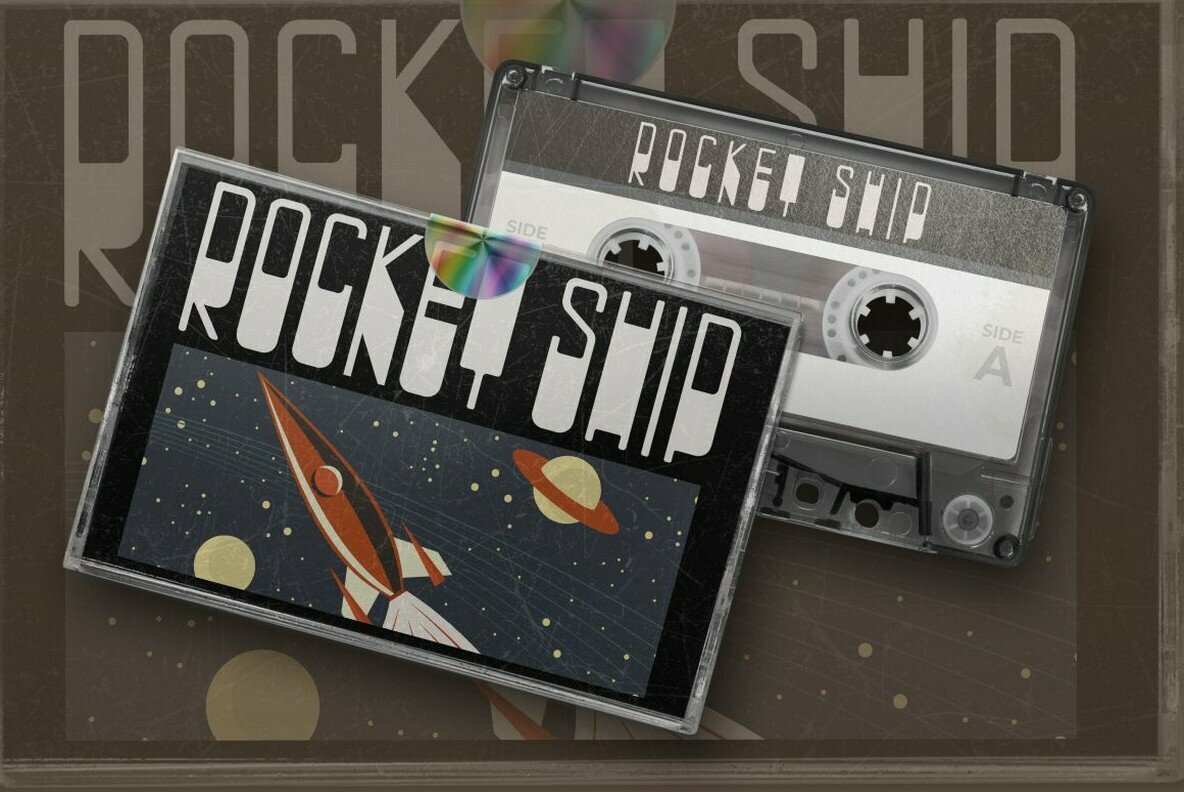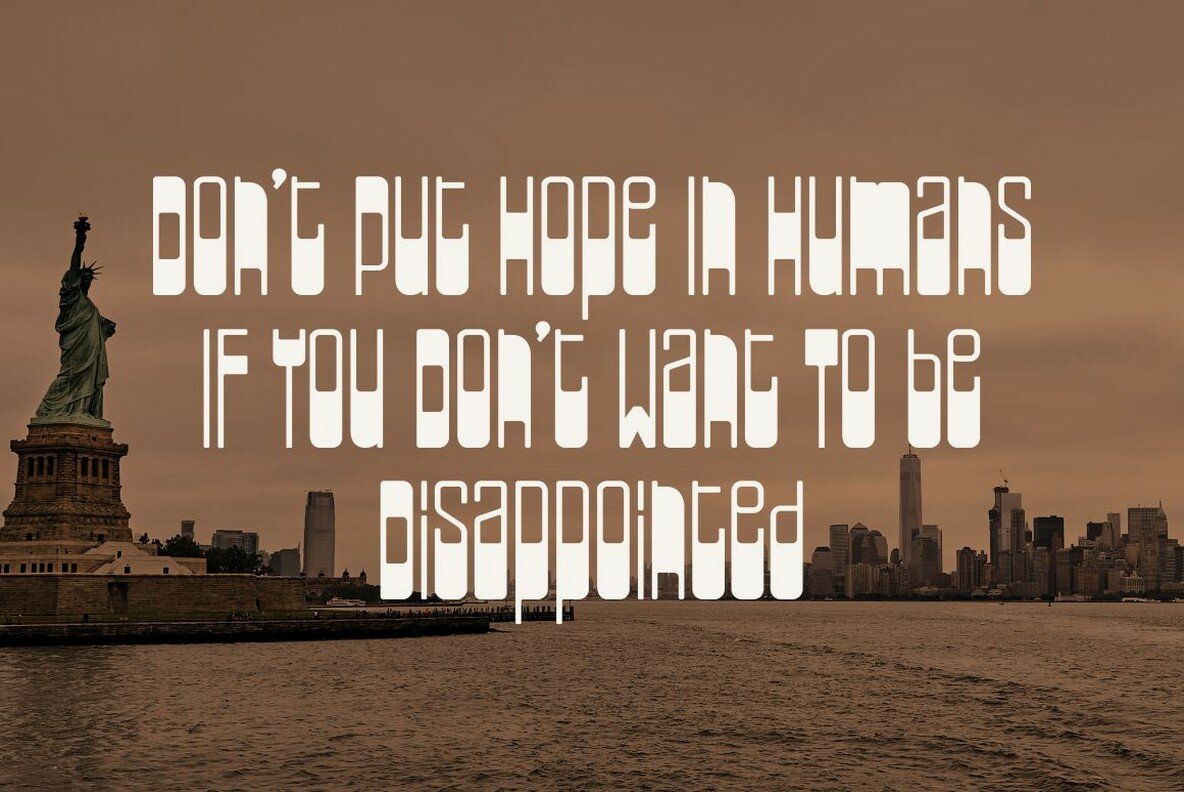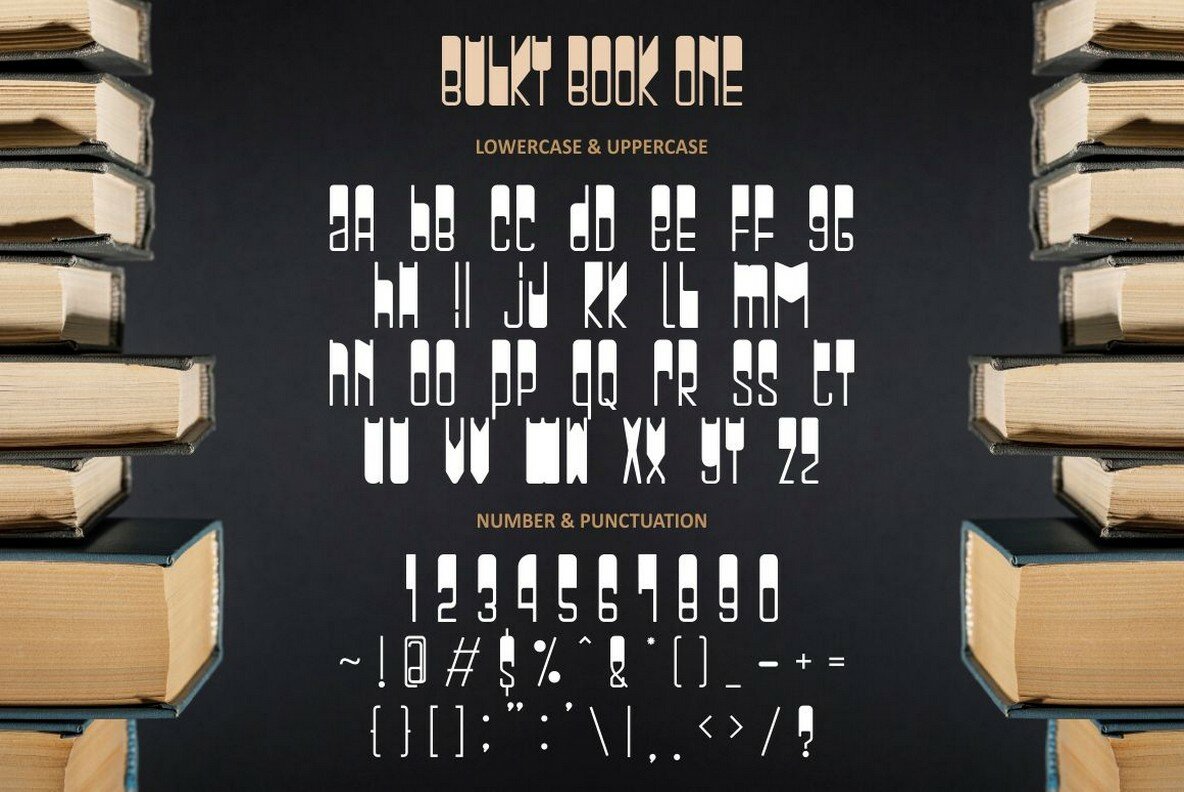
Bulky Book Font
Bulky Book offers a collection of three display fonts designed with distinct line thicknesses — ideal for projects that demand attention. Each font in this trio showcases a unique weight, either thick at the bottom, centered in the middle, or emphasizing the top, crafted from a singular design base. This allows effortless pairing and integration across various designs, ensuring your creative work is both cohesive and striking. Bulky Book is particularly suited for vintage and classic aesthetics. This font collection is perfect for an array of uses including logos, branding, book titles, posters, apparel, social media graphics, and more. Its adaptability across multiple platforms and applications, from Procreate to Cricut on both Windows and macOS, makes it a reliable design choice. Features:Bulky Book: A Trio of Distinctive Display Fonts